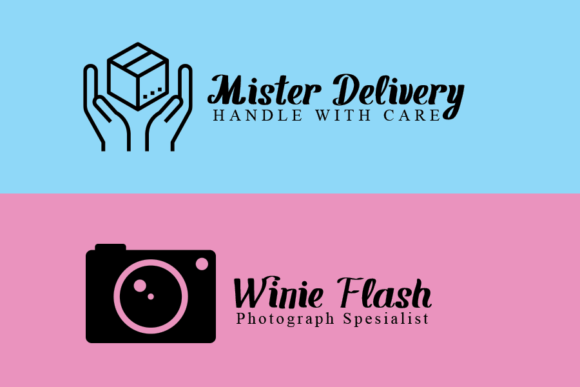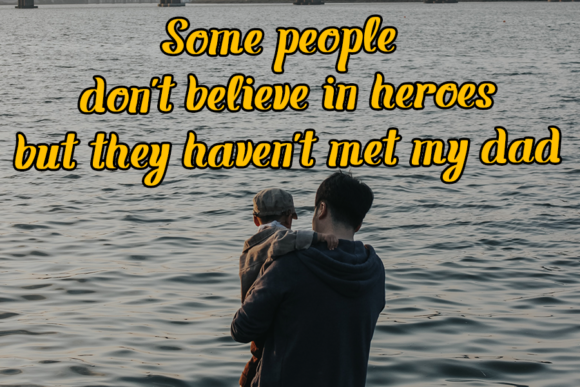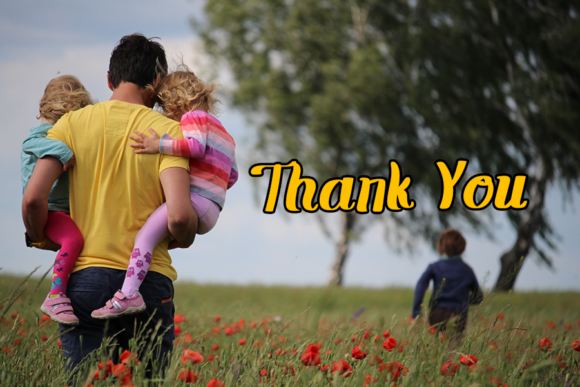
Super Dad
Super Dad: A Sweet and Friendly Slab Serif Font
Super Dad is a delightful slab serif font that exudes a sweet and friendly vibe. Its natural and unique style makes it incredibly fitting for a wide range of designs, ensuring that your projects stand out with charm and warmth.
Key Features of Super Dad
• Sweet Design: Features playful and inviting letterforms that create a friendly atmosphere.
• Unique Aesthetic: Offers a distinctive look that resonates well with family-oriented themes.
• Slab Serif Structure: Incorporates the characteristic thick, rectangular serifs typical of slab serif fonts.
• Versatile Application: Perfectly suited for various projects, from print to digital media.
• Imaginative Potential: The only limit is your imagination; it can be used in countless creative contexts.
Ideal Uses for Super Dad
Super Dad’s unique characteristics make it particularly well-suited for:
• Children’s book covers and illustrations.
• Logos and branding for family-friendly businesses.
• Invitations and greeting cards that need a warm touch.
• Social media graphics aimed at engaging audiences with a friendly vibe.
• Crafty DIY projects that require a sweet aesthetic.
When incorporating Super Dad into your designs, consider the following tips:
• Use for both headlines and body text to showcase its versatility while maintaining readability.
• Experiment with different sizes to highlight the font’s charming details.
• Consider pairing with complementary sans-serif fonts for body text to create contrast.
• Take advantage of its adaptability across various themes and styles in your projects.
Super Dad is an excellent choice for designers looking to add a sweet and friendly slab serif font to their typographic toolkit. Its ability to enhance various design projects makes it stand out in the world of typography. Whether you’re working on branding, creating layouts for children’s content, or developing playful marketing materials, Super Dad offers the perfect blend of charm and functionality.
Add Super Dad to your creative projects and explore how it can enhance your designs with its delightful and inviting style. From engaging headlines to charming text blocks, this font provides the tools to create impactful and memorable typography that resonates with audiences of all ages.